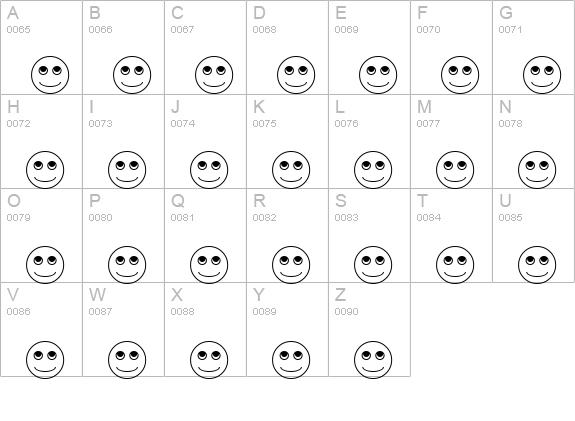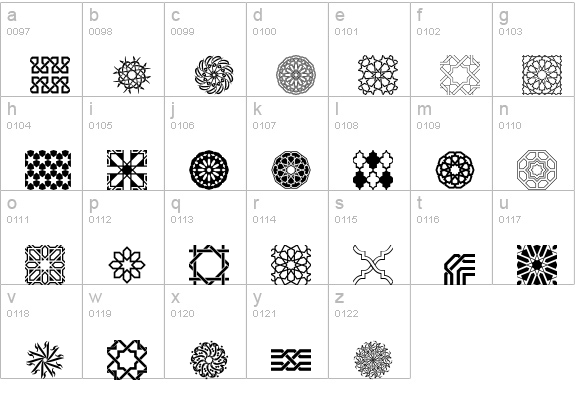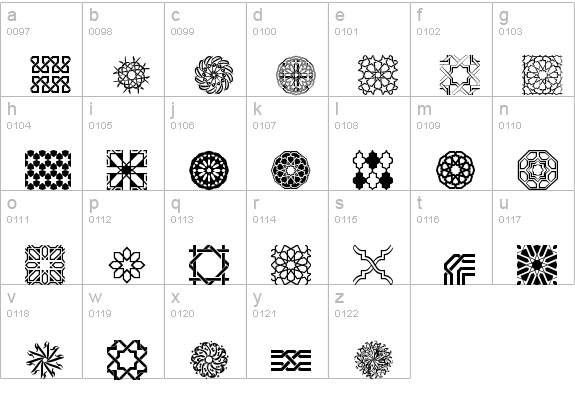
AGA Arabesque Free Sample Font Details
AGA Arabesque Free Sample is a stunning display font that embodies elegance and sophistication. With intricate details and delicate curves inspired by traditional Arabesque patterns, this font is perfect for adding a touch of luxury to your designs. The AGA Arabesque Free Sample is available for free download at FontsMarket.com, making it accessible for all designers and creators looking to elevate their projects with a touch of Middle Eastern flair. Whether you're designing invitations, logos, or branding materials, this font will surely make a statement with its unique and ornate style. Download the AGA Arabesque Free Sample today and let your creativity shine with this exquisite typeface.